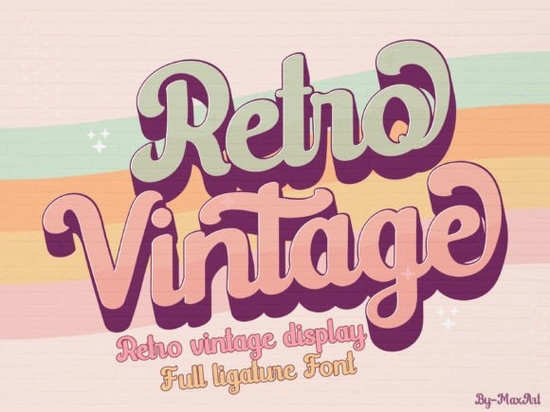
Finding the right typeface can shape the entire mood of a design project. The Retro Vintage Font is a vintage-style handwritten font that brings classic, nostalgic charm to logos, branding, invitations, stationery, wedding designs, and social media posts. If you work with print-on-demand products, client projects, or personal crafts, this typeface gives you a warm, hand-lettered look without starting from scratch.
What Makes the Retro Vintage Font Stand Out?
This font is inspired by old-school typography styles that were popular in mid-century signage, packaging, and advertising. The script letterforms have a natural, hand-drawn quality that feels personal and approachable. Unlike overly polished modern typefaces, a vintage script font carries texture and character that connect with audiences on an emotional level.
Key features include:
- Handwritten script style with flowing, connected letters
- Classic charm that works across both digital and print formats
- Versatile design suitable for headings, logos, and display text
- Readable letterforms even at smaller sizes
Where Can You Use a Vintage Handwritten Font?
This typeface works well across a surprisingly wide range of projects. Here are some of the most popular uses:
- Wedding invitations and save-the-dates The elegant, hand-lettered feel pairs beautifully with floral illustrations and soft color palettes.
- Logo design Small businesses like bakeries, coffee shops, and boutique stores often choose retro script fonts to convey warmth and authenticity.
- Social media graphics Instagram quotes, Pinterest pins, and Facebook headers look more eye-catching with a vintage typeface.
- Stationery and greeting cards Whether for personal use or a print-on-demand shop, vintage fonts add a handmade feel to paper goods.
- T-shirt and merchandise design Retro typography is a popular style on apparel, mugs, and tote bags.
How Does It Compare to Other Retro Fonts?
Creative Fabrica offers a solid collection of retro and vintage typefaces, so how do you know which one fits your project? Here is a quick comparison:
Using two or three complementary fonts together often creates a stronger visual hierarchy than relying on a single typeface alone.
Who Should Use This Font?
This typeface is a good fit for:
- Print-on-demand sellers looking for trending retro designs
- Graphic designers working on branding packages for small businesses
- DIY crafters creating invitations, party decorations, or home decor
- Social media managers who want a distinctive visual style
- Wedding planners and stationers designing custom suites for clients
The retro and vintage trend in design has stayed popular for years now, and it does not seem to be slowing down. A well-chosen vintage font gives your work a timeless quality that feels both nostalgic and current.
Tips for Getting the Most Out of Your Font
- Pair it wisely. Combine your vintage script with a clean sans-serif for body text to keep things readable.
- Watch your spacing. Handwritten fonts sometimes need manual kerning adjustments, especially at larger display sizes.
- Test at multiple sizes. Make sure the font stays legible on both a phone screen and a printed poster.